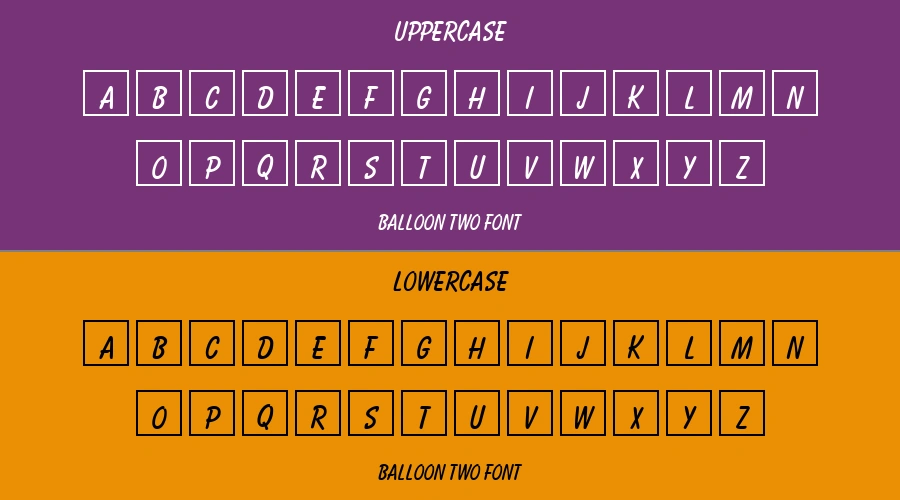
About Balloon Two Font
Designed with precision, Balloon Two Font merges high x-height with optical balance in every character. This versatility makes it particularly effective for brand identities, where clarity and enduring appeal directly impact communication quality. Each letterform demonstrates meticulous craftsmanship.
Technical excellence shines through elements like elegant spacing and discretionary ligatures, enhancing typographic versatility. In campaign headers settings, Balloon Two Font proves its worth through superior archive stability. The thoughtful execution of x-height and contemporary relevance ensures professional results.